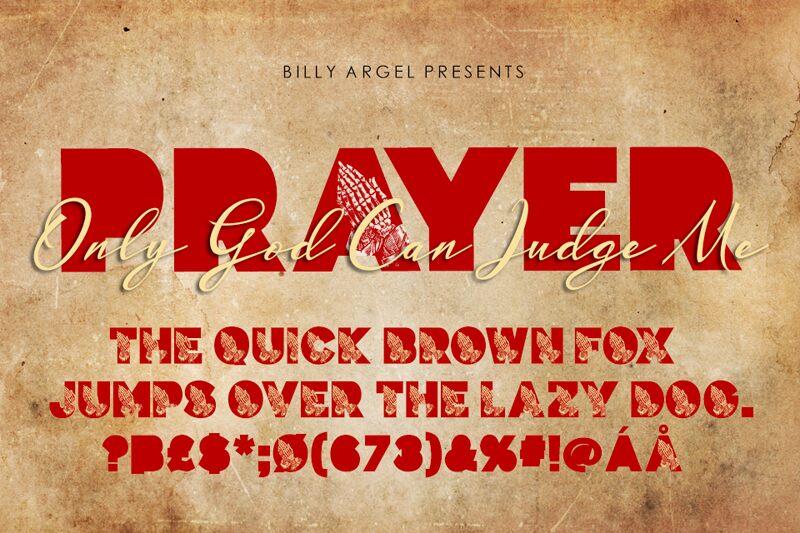
PRAYER PERSONAL USE Bold
Introducing PRAYER Bold, a wide and bold display font designed by Billy Argel. Perfect for creating eye-catching headlines, logos and posters with a decorative flair. Make your projects stand out!
Overlapping font DUO